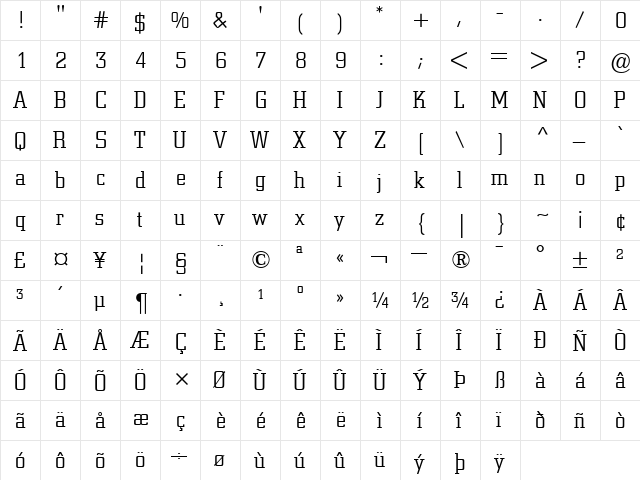
BertholdCity-Light Light
Design Context for BertholdCity-Light Typeface
BertholdCity-Light takes a measured approach to typography — its balanced proportions and neutral character make it a reliable workhorse for both digital and print work. Its slender proportions lend an understated elegance to any composition.